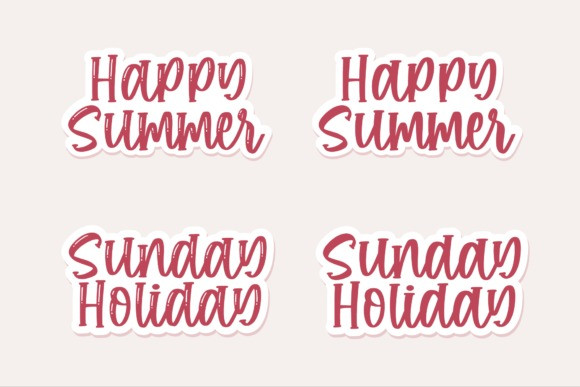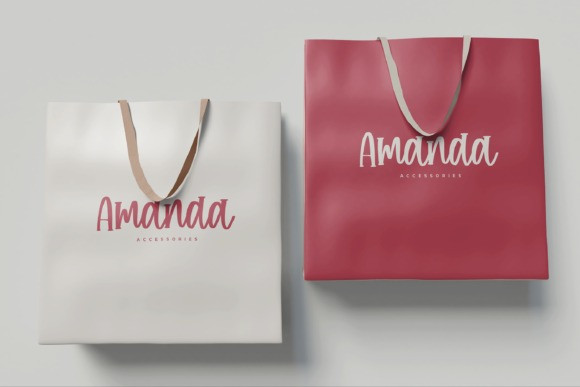
Matheva Display Font
Matheva is a modern and neat display font. It can easily be matched to an incredibly large set of projects, so add it to your creative ideas and notice how it makes them stand out!